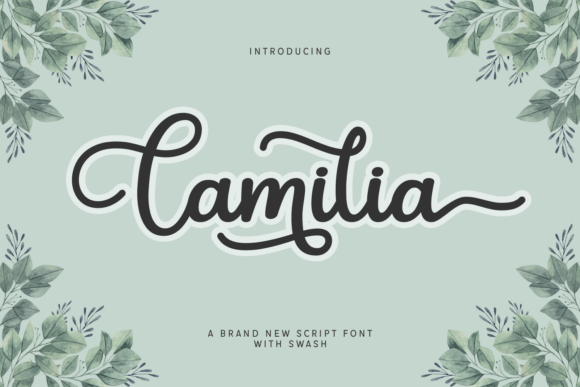
Remember the thrill of finally finding the perfect font for your latest design project? It’s like stumbling upon a hidden treasure, isn’t it? You’re browsing through your font library, and suddenly, a font catches your eye, making you exclaim, ‘Ah-ha! This is it!’ That’s exactly what happens when you come across the Camilia Font.
Camilia Font is a beautiful script font that seamlessly blends elegant curves with a bold outline, resulting in a harmonious and versatile design. Whether you’re working on a wedding invitation, branding, logos, or social media graphics, this font is sure to bring a touch of warmth and creativity to your project.
As a designer, you know how valuable it is to have a font that can elevate your work and make it stand out. That’s exactly what the Camilia Font offers – a unique and charming design that’s perfect for adding a personal touch to your projects.
Camilia Font Key Features
- Unique Characteristics: Camilia features a unique blend of elegant and modern elements, making it suitable for a wide range of applications, from formal invitations to casual greeting cards.
Camilia Font Review
Camilia Font is a beautiful script font that exudes elegance and sophistication. Here’s my honest review of this lovely font.
- Camilia Font has a smooth and flowing feel to it, making it perfect for invitations, wedding stationery, and other special occasions.
- The font is highly legible, even at smaller sizes, making it suitable for body text as well as headings.
- The font’s subtle flourishes and curvaceous lines give it a unique and romantic feel that’s hard to find in other fonts.
- The font may not be ideal for text-heavy documents or articles, as the flowing lines can make it difficult to read large blocks of text.
- The font’s beauty comes at a cost: it’s not as versatile as other fonts, and it may not work well in certain design contexts.
Camilia Font is a stunning font that’s perfect for adding a touch of elegance to your designs. While it may have some limitations, its beauty and sophistication make it a great choice for special occasions and events. If you’re looking for a font to make a statement, Camilia Font is definitely worth considering.
Tips for Getting the Most Out of Camilia Font
Here are some tips for getting the most out of Camilia Font:
- Use Camilia Font for elegant and sophisticated designs.
- Pair Camilia Font with other elegant fonts for a cohesive look.
- Use Camilia Font for titles, headings, and other important text elements.
Here are some common use cases for Camilia Font:
- Business cards and letterheads.
- Product labels and packaging.
Alternatives to Camilia Font
Ostrich Sans is a modern sans-serif font with a playful and friendly feel. It’s ideal for use in branding, logos, and titles where a clean and approachable look is desired. Ostrich Sans is more geometric and has a more rounded feel compared to Camilia Font, which has a more elegant and refined look.
Montserrat is a geometric sans-serif font with a strong and urban feel. It’s suitable for use in titles, headings, and body text where a clean and modern look is required. Montserrat is more condensed and has a more industrial feel compared to Camilia Font, which has a more elegant and refined look.